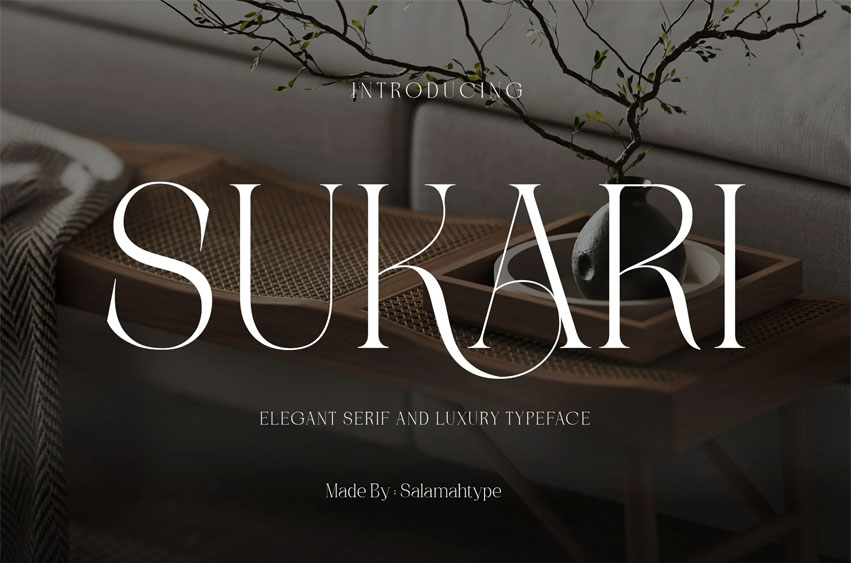
Sukari Font
Sukari Font is a modern serif font with a touch of sweet elegance! With its thin strokes and charming capital letters, Sukari brings a fresh and stylish feel to your creative projects. Whether you’re designing an on-trend logo, a stunning wedding invitation, or a chic fashion magazine cover, this font adds just the right touch of style. The font comes in beautiful alternates and a graceful italic version, giving you all the flexibility you need to play around and explore.
If you love mixing elegance with personality, Sukari is ready to be your new favorite font!